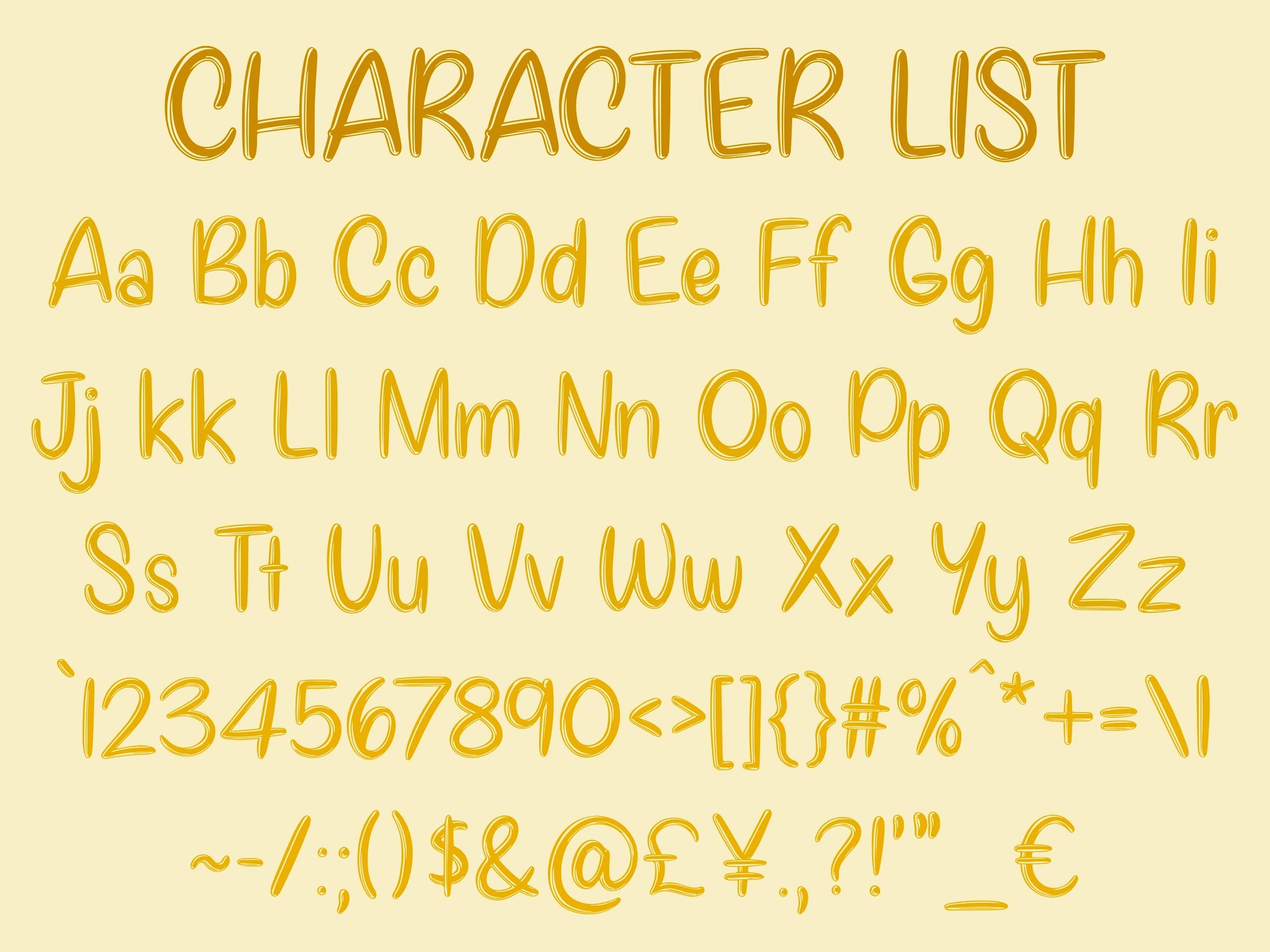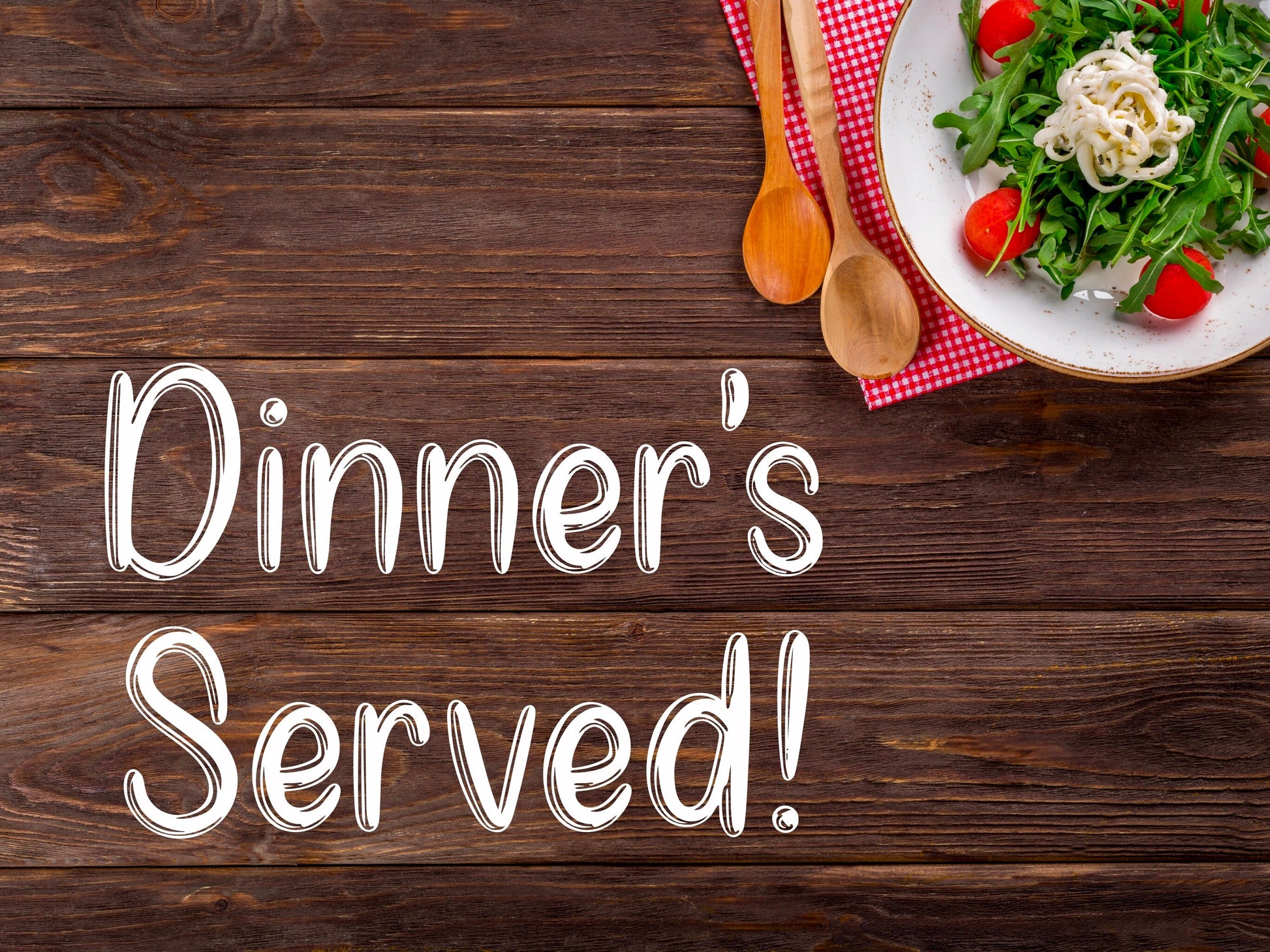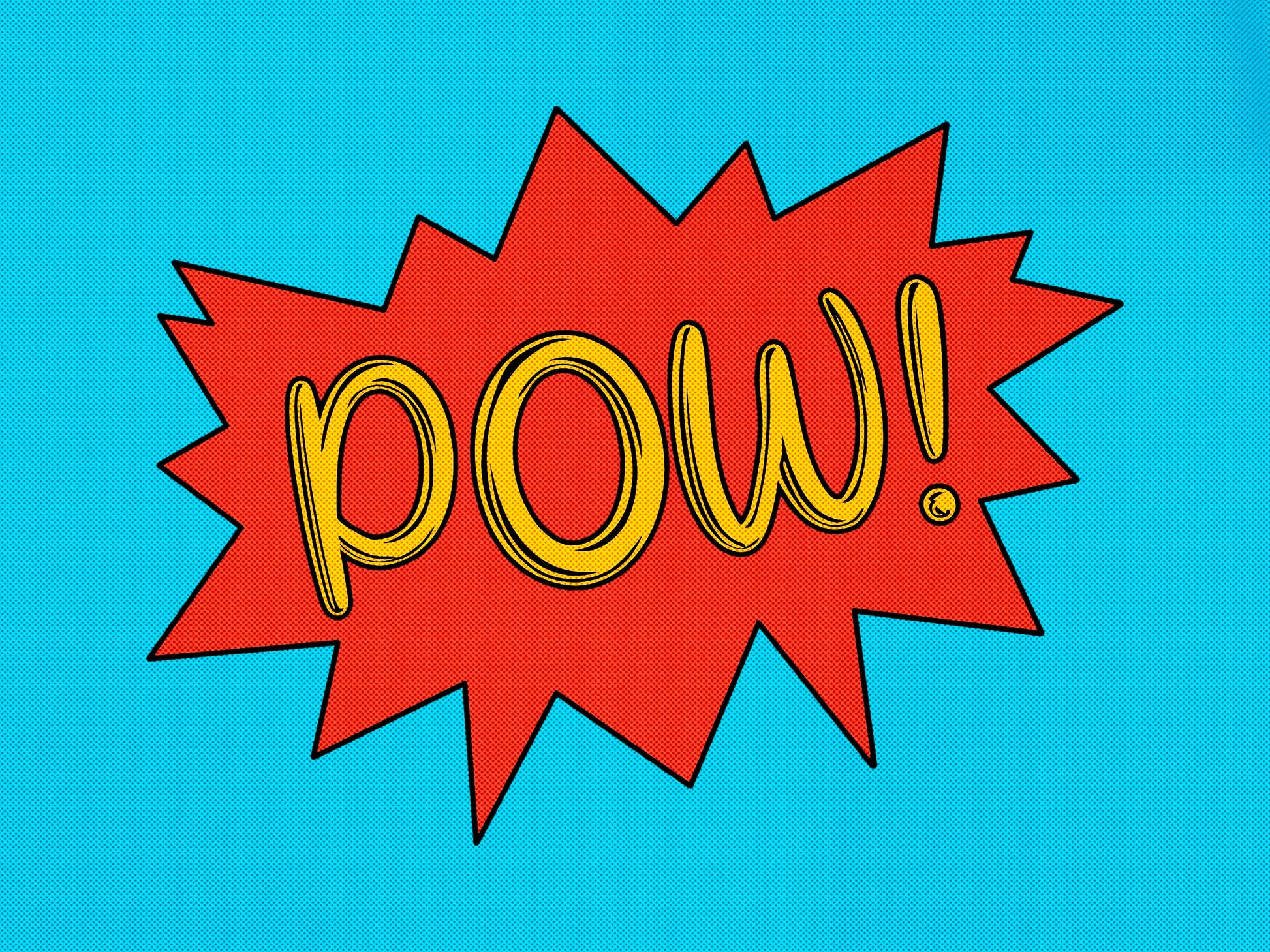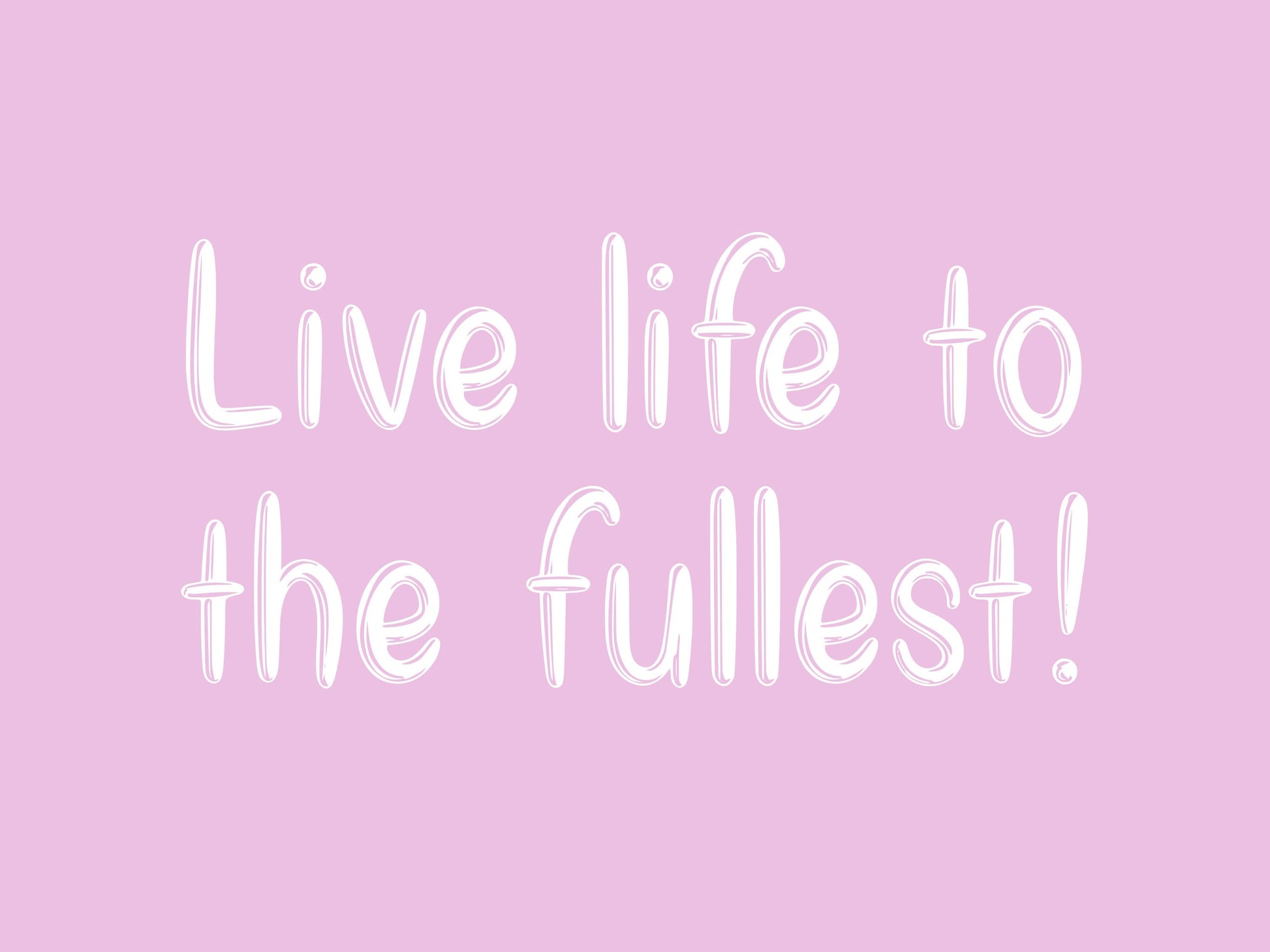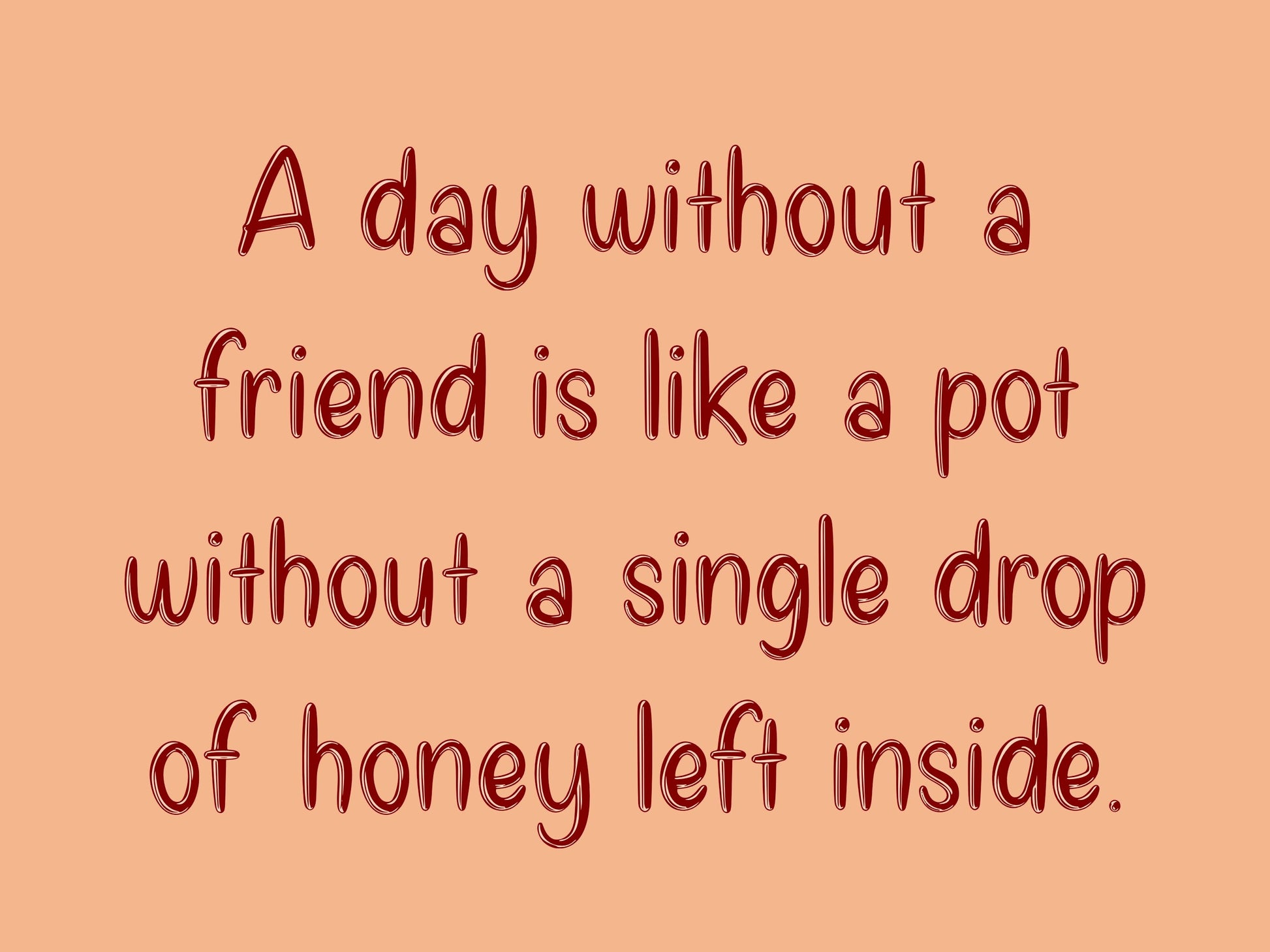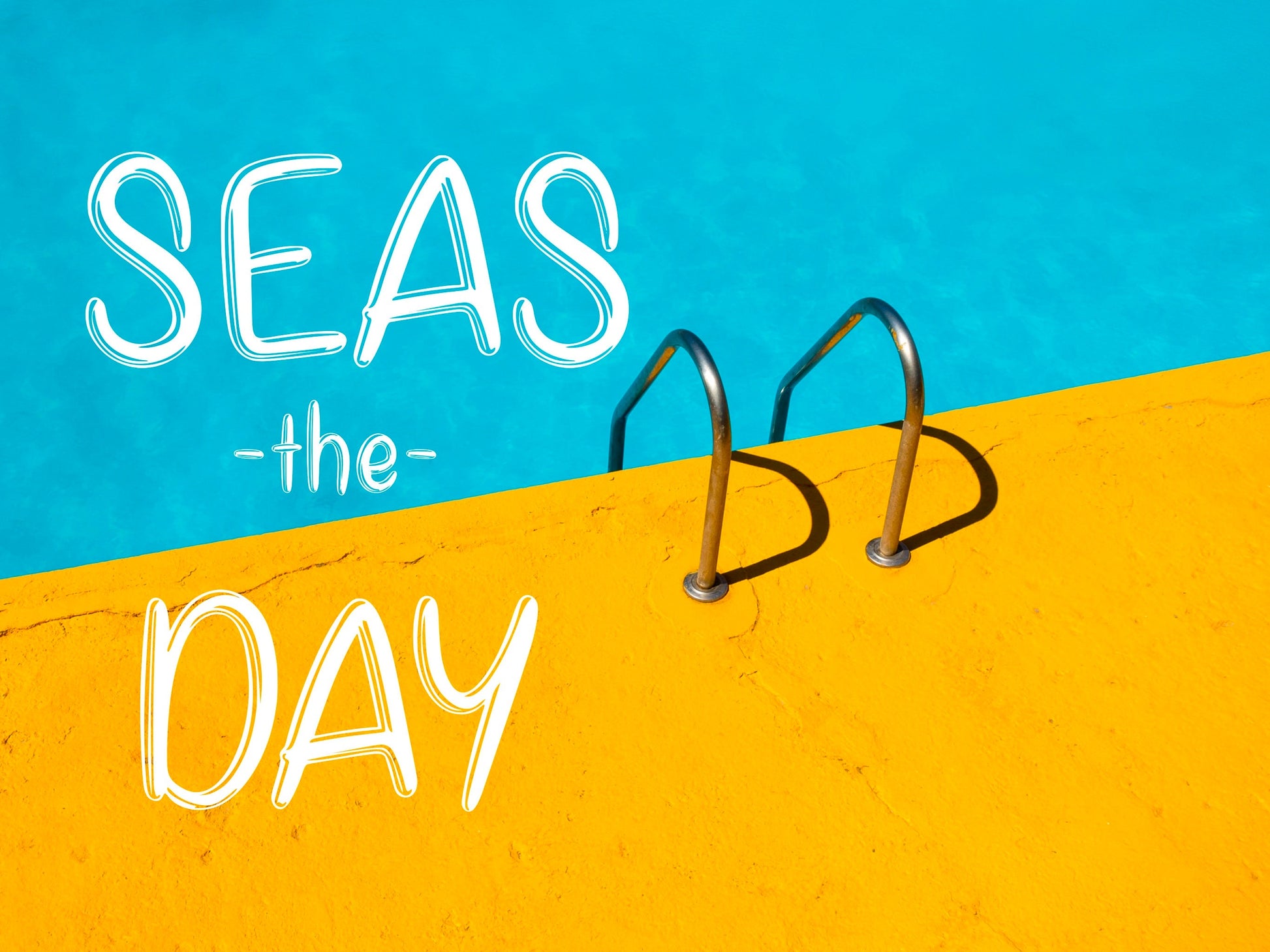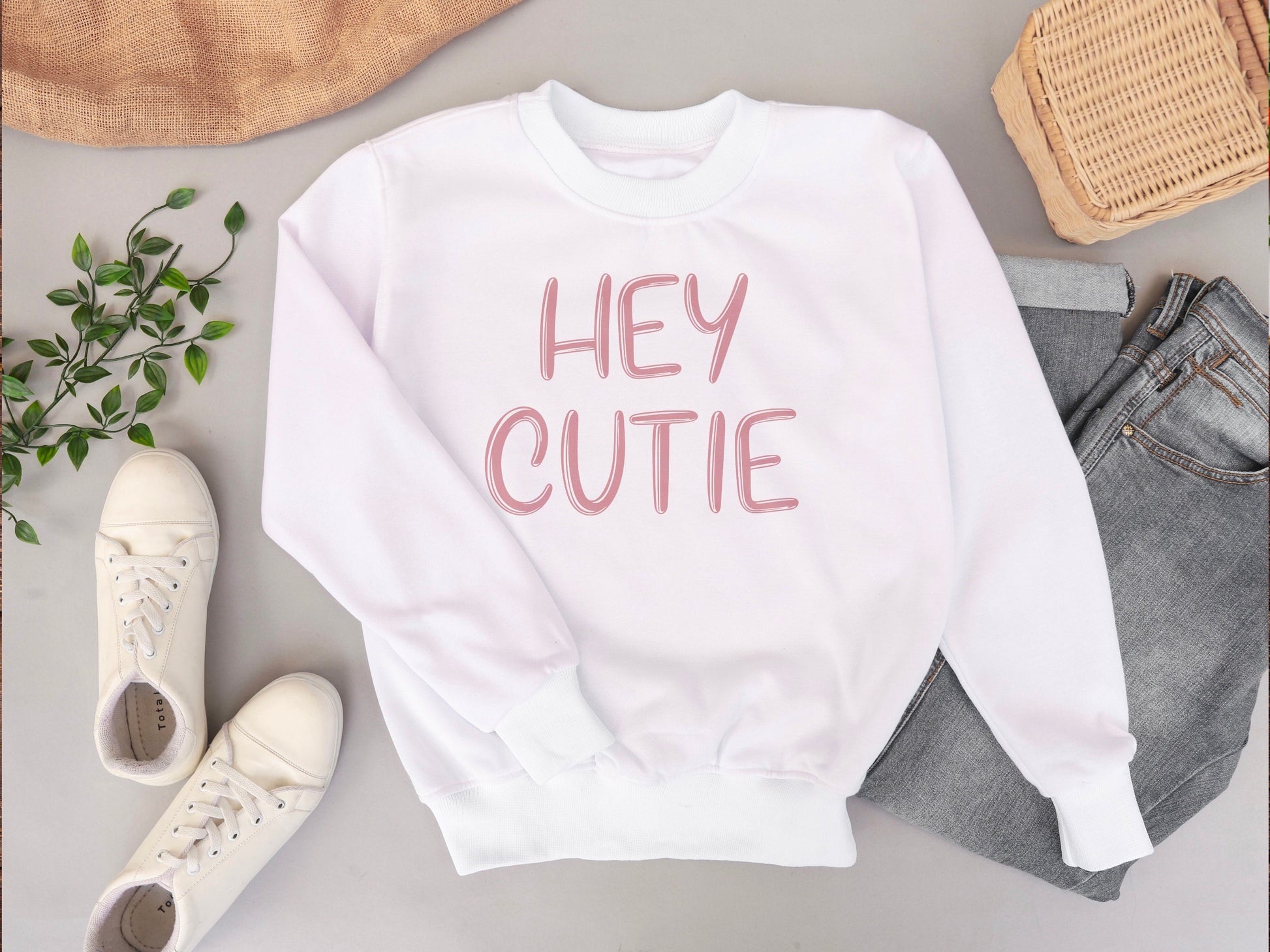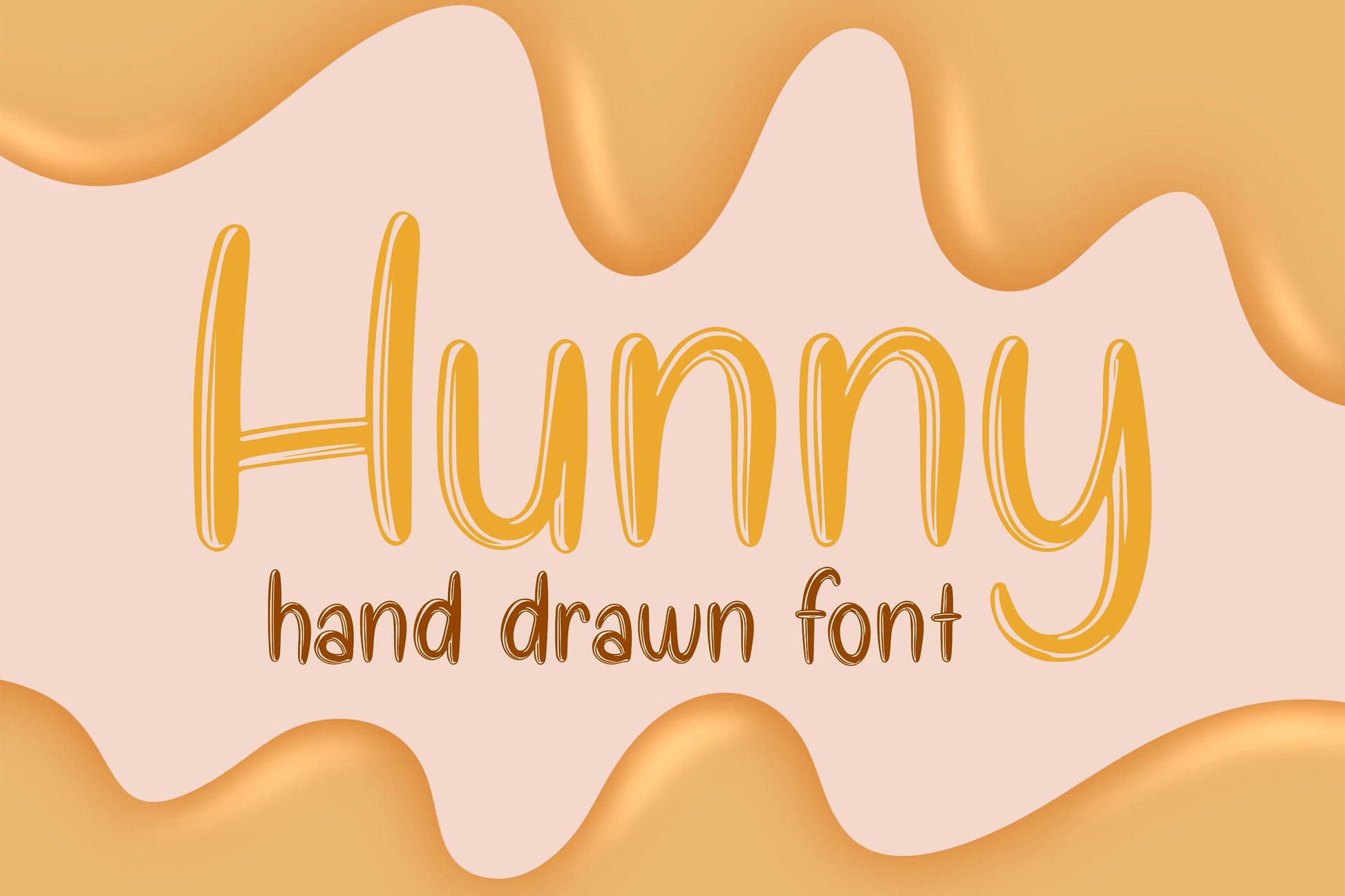
Hunny Hand Drawn Font
This is my Hunny handwritten/hand drawn font. Save time adding shine and depth to your test with this custom font with an automatic glossy appearance. This unique, shiny looking font with slightly rough pop art edges will add a fun, cheerful, handmade flare to your design!